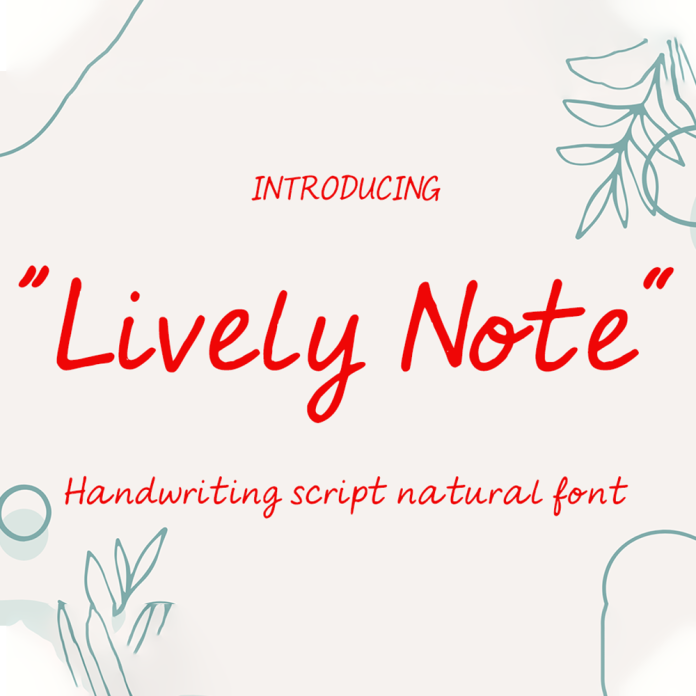
Lively Note font is a whimsical and dynamic script font with brush strokes that give it a playful and energetic feel. Perfect for designs that need a touch of creativity and spontaneity, such as invitations, posters, and social media graphics. Its unique style adds a lively and cheerful element to any project.